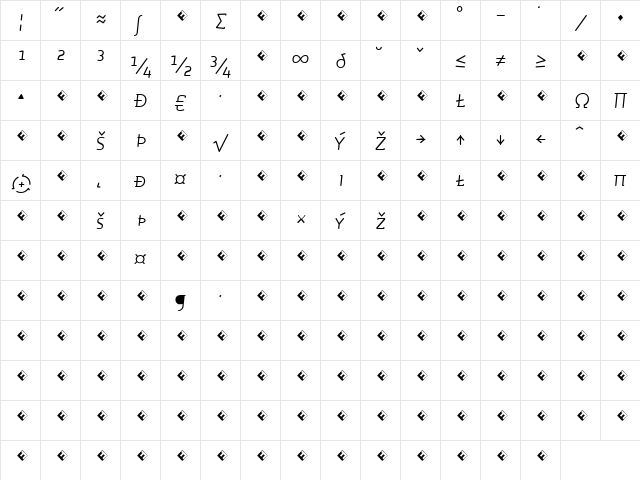
Roice-LightItalicSCExpert Regular Font Preview
Design Context for Roice-LightItalicSCExpert Typeface
Roice-LightItalicSCExpert offers clean, dependable letterforms without strong stylistic allegiance, making it a practical choice for designers who need flexibility. Its italic angle brings a sense of urgency and motion to the letterforms. The delicate stroke weight brings airiness and refinement to layouts.
Pro Tip: Try Roice-LightItalicSCExpert for annotation and caption copy alongside an upright companion — the contrast in angle creates a dynamic but ordered typographic system.